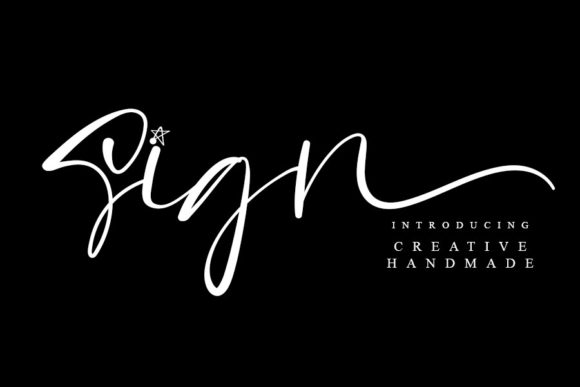
Behold, Sign Font - The Masterpiece Script Font for Primary School, Brilliantly Crafted by NYA Letter!
Journey into the realm of elegance and creativity, where Sign Font resides, a splendid script font that exudes natural beauty and sleek sophistication. Designed with meticulous precision, Sign Font captures the essence of handwritten charm, seamlessly blending artistry and functionality. Its enchanting curves and graceful strokes evoke a sense of warmth and authenticity, inviting your creative vision to soar to new heights.
As an educator, you understand the significance of nurturing young minds, fostering their imagination, and providing them with the tools to express themselves freely. Sign Font emerges as the perfect companion in this noble endeavor. Its easy-to-read, yet visually captivating design makes it an ideal choice for creating captivating educational materials that engage students and ignite their passion for learning.
Imagine transforming your classroom into a vibrant and immersive learning environment, where every lesson comes alive with the charm of Sign Font. Craft captivating worksheets, presentations, and posters that capture the attention of your students, making complex concepts more approachable and enjoyable. Unleash the power of storytelling with beautifully handwritten notes and assignments, inspiring your students to embark on literary adventures.
Beyond the confines of the classroom, Sign Font extends its versatility to a myriad of creative projects. Design eye-catching invitations for school events, create personalized certificates and awards that celebrate your students' achievements, or craft stunning newsletters that keep parents informed and engaged. The possibilities are endless, limited only by your imagination.
With Sign Font as your creative ally, you become an artistic storyteller, weaving tales of wonder and knowledge into the hearts and minds of your students. Each letter, meticulously crafted to perfection, carries the weight of your passion and dedication, transforming ordinary lessons into extraordinary experiences.
Embrace the magic of Sign Font, and watch as your students flourish, discovering the joy of learning and expressing themselves with confidence. Its timeless beauty and versatility will accompany you on this incredible journey, leaving an indelible mark on the hearts and minds of those you teach.